Cursive Font Generator
Here, you can view and explore the finest form of font by navigating through multiple options of cursive style. After so many years of usage, this font style still has a unique place among other fonts. In this digital age, cursive font is a pleasing resource for all of us with its beautiful and flourishing look.
Many Hearts Bloom With Its Beauty!
Cursive, with its flowy and silky appearance, reflects our emotions. Personally, I believe that this font influences my moods when I am tired or alone. I love using this style in my documents or messages while sending them to relatives or loved ones. I felt it perfectly conveyed my emotions to them and built a stronger bond of relationship than before. You may use this cursive font in your Instagram bios, Facebook posts, and anywhere else because it reflects emotions beautifully. Furthermore, it adds a personal touch and a handwritten feel to your everyday documents.
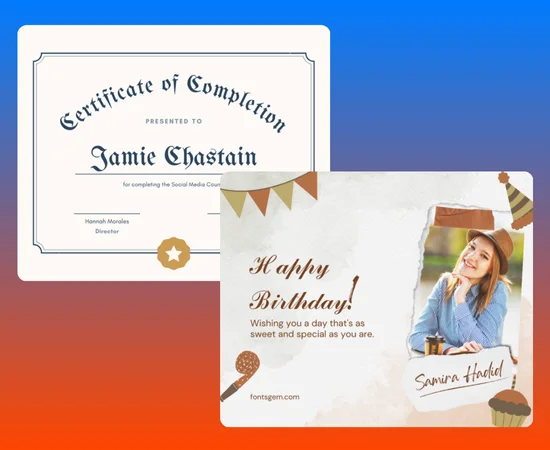
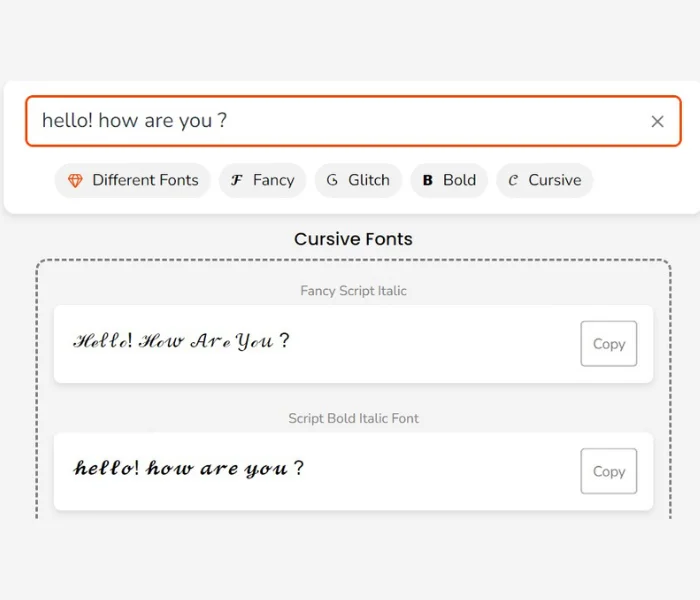
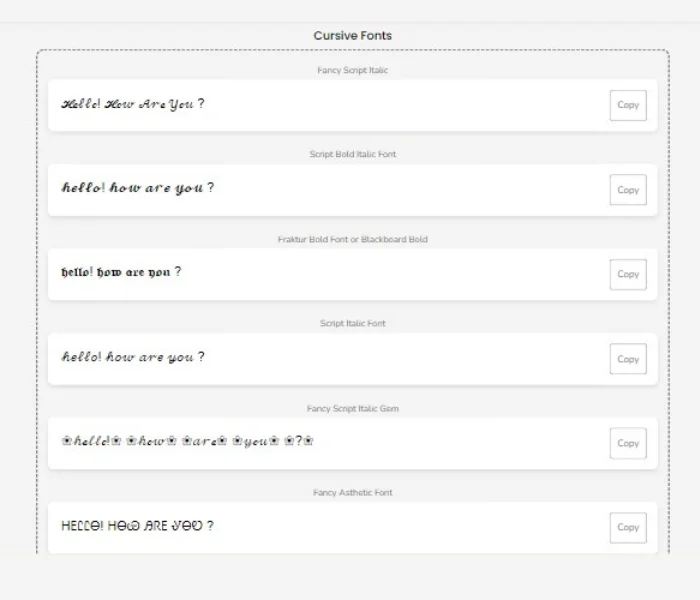
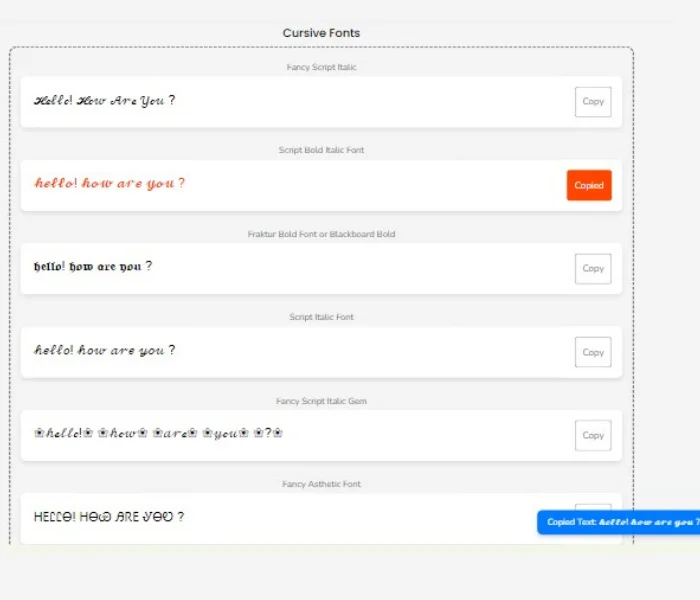
Best Takeaways
Unique and distinct fonts
Use fonts that are unique and unpopular. Whereas we see many experts use traditional fonts in their projects, urging us to utilize those trendy fonts also. Introduce yourself as an artist with distinct creativity. So make sure to employ modern fonts and avoid overused fonts.pairing font
From formal to traditional, when cursive combines with other appropriate fonts, apparently it looks great and conveys the message properly.Usually, non-cursive is the best option for pairing, so select a font that is best suited to your context and theme.
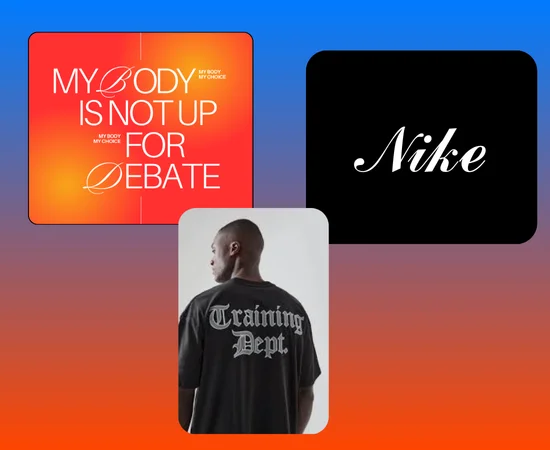
Cursive Font as an Artistic Approach
Unlimited use in the fashion and artistic worlds made it a symbol of beauty and elegance. Artists and designers customize this font in logo design for outstanding branding like luxurious clothing and delicious food advertising. It successfully appeals to people and achieves the goal through its stylish and traditional look. You can search and discover that many famous brands have adopted this cursive as their main font.
Logo-making for branding.
Food companies.
Beauty and skincare.
Health and consciousness.
Personalization
In this busier age, we are now able to add warmth and grace to our words with the help of this digital cursive font. Whether you are giving wishes to your relatives or someone else, it reflects your deep-hearted emotions. In wedding invitations and wish cards, it beautifully evokes feelings of romance and love.
The best option is to embed cursive.
Greeting cards. Handwritten notes. Birthdays wishes. Wedding Invitations.
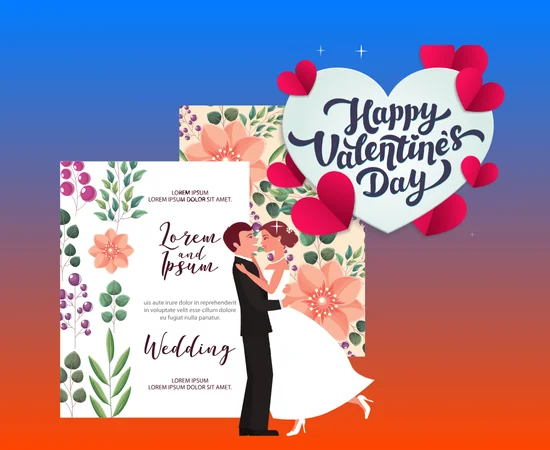
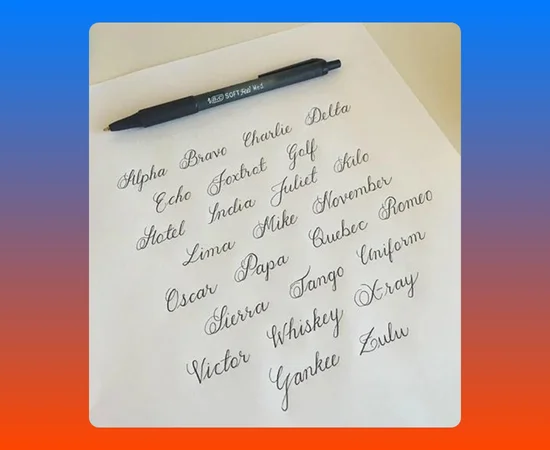
Mimic Handwriting and Calligraphy
As a result of my consideration and observation, many people have no significant knowledge and are a little bit confused about these three: script, calligraphy, and handwritten fonts.
They take all three simply by saying they are cursive. In actuality, these three have significant differences and features between them. They have swirling lines with no joint letters; any artist can easily differentiate among them. But here is a crazy and funny fact about cursive: it actually mimics handwritten sense and also calligraphic style in its appearance. These qualities made it stand out and bear resemblances to them.
Cursive in Titles and Phrases
For the best outcomes, a font should be chosen that is more related to the subject of the content. In highlighted headings and titles, cursive seems to be a good choice. It conveys both luxury and creativity in a distinct way.
Cursive is non-readable if it is thin and employed in long passages. So for impressive communication, select cursive for short phrases.